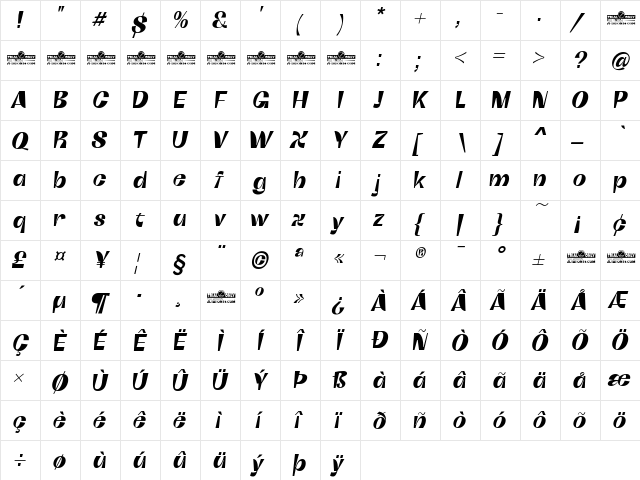
Boring Sans C Trial Bold Italic
Design Context for Boring Sans C Trial Typeface
Boring Sans C Trial offers clean, dependable letterforms without strong stylistic allegiance, making it a practical choice for designers who need flexibility. The slanted form adds forward momentum and visual energy. The heavy weight commands attention and anchors typographic hierarchies.
Pro Tip: Use Boring Sans C Trial for emphasis, pull quotes, and subheadings where its slanted energy can add rhythm to the layout.